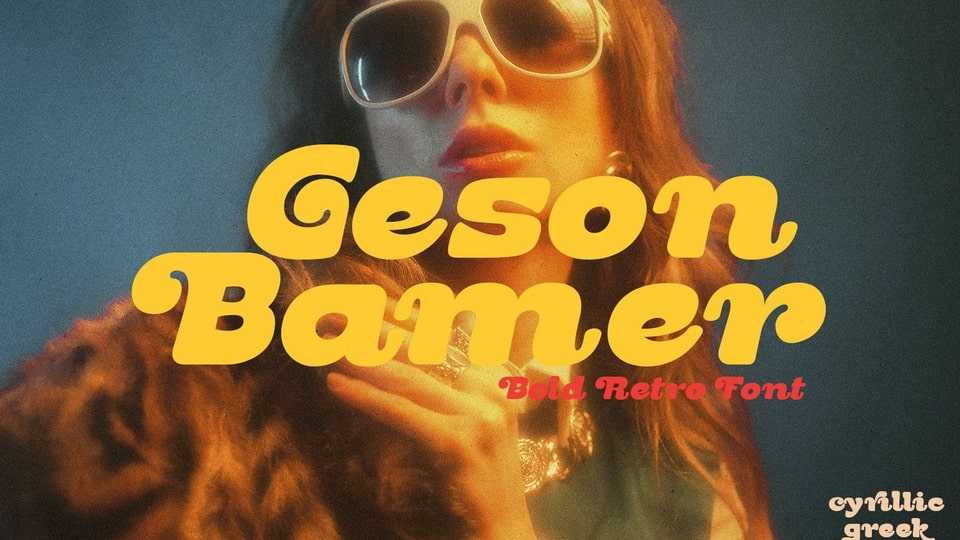
Download Geson Bamer font, a retro typeface that’s a blast from the past, channeling the iconic style of the 1980s. Whether you’re crafting nostalgic event posters, vibrant album covers, or branding materials that need a dose of retro cool, Geson Bamer adds a touch of 80s flair and a hint of nostalgia to every letter.